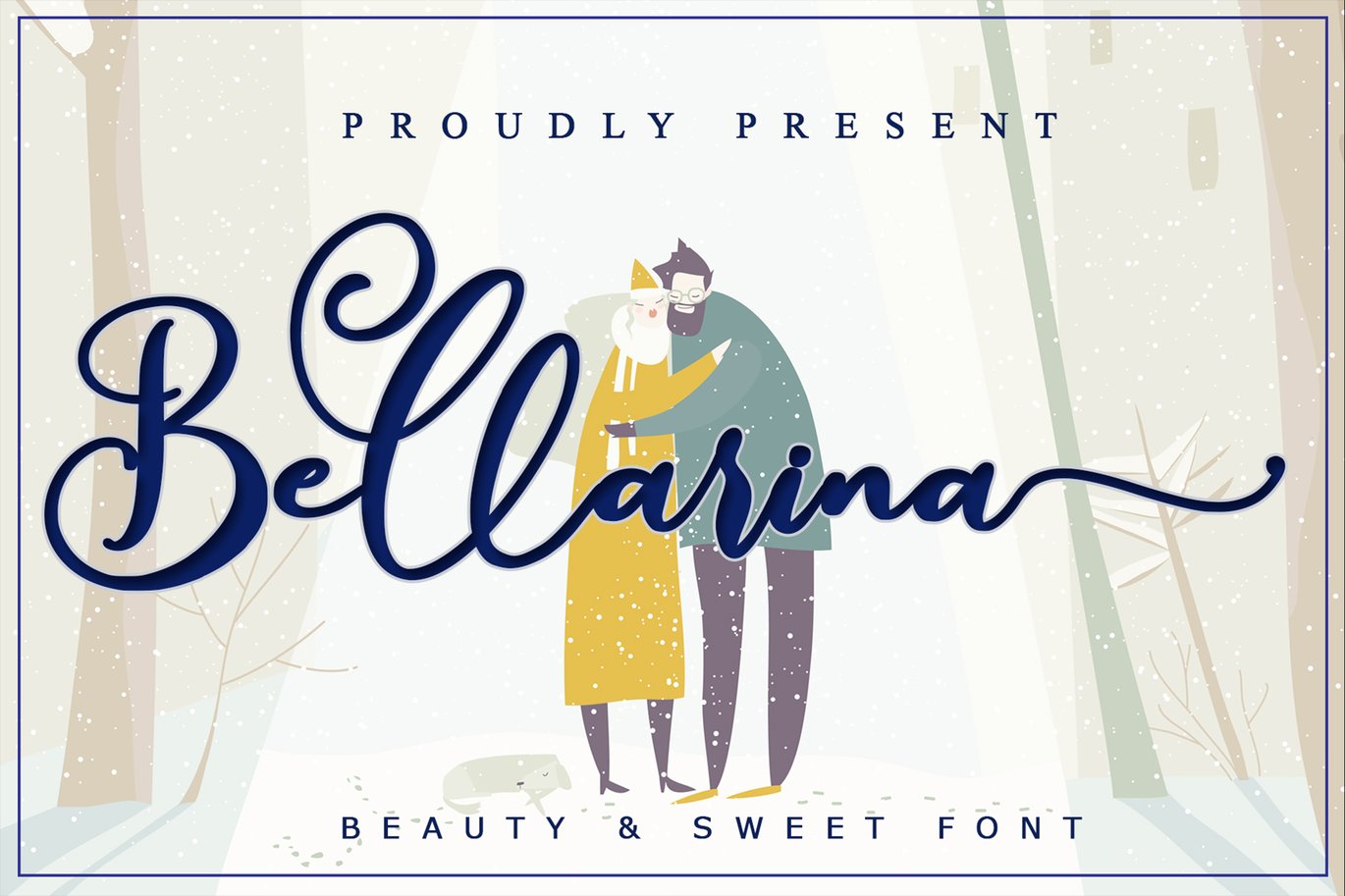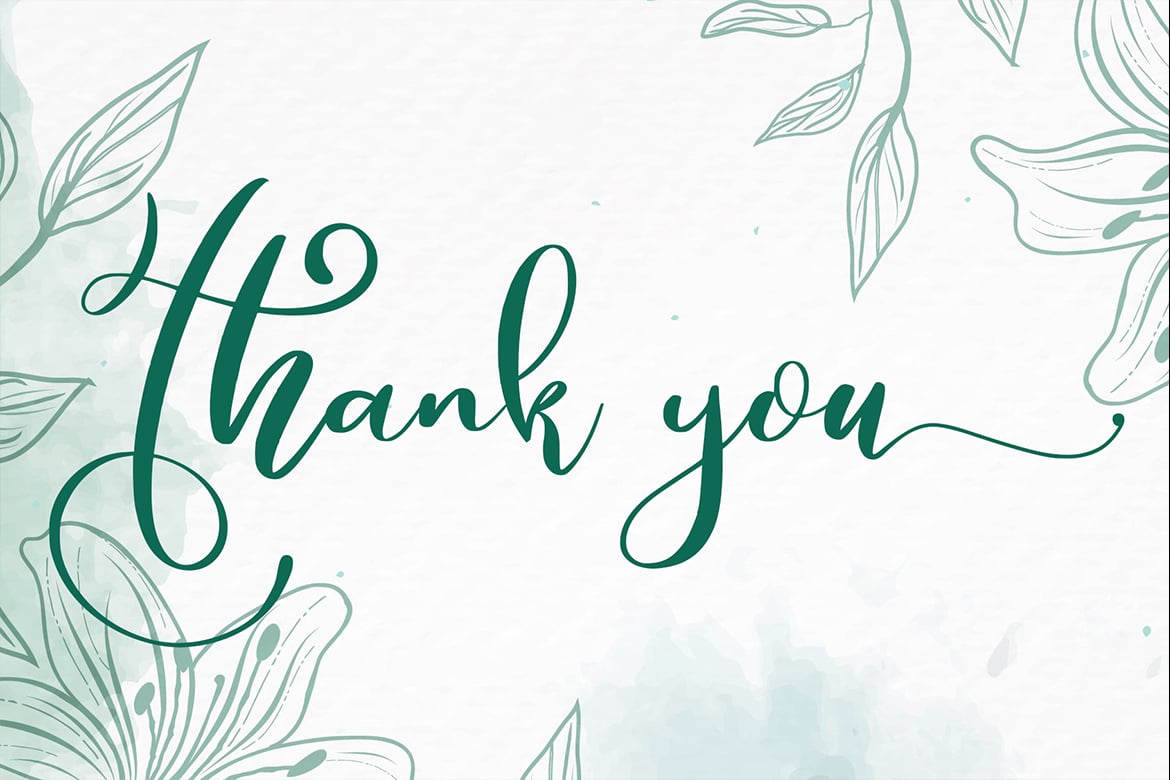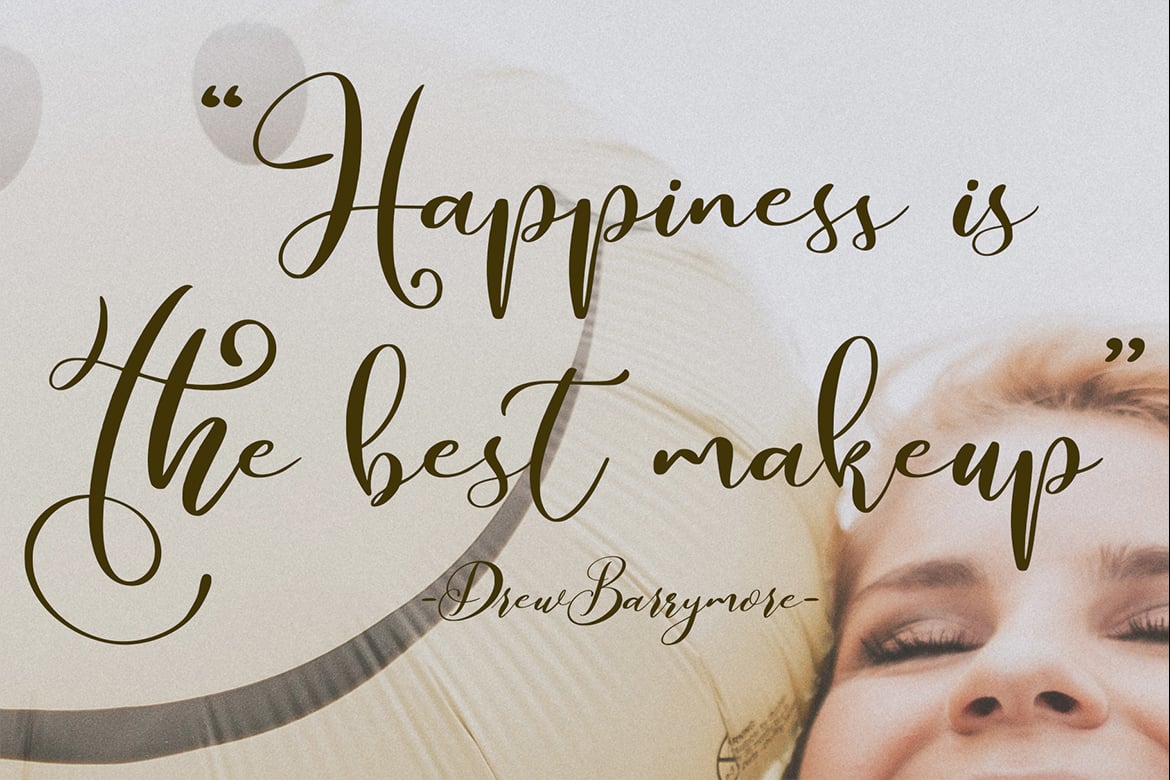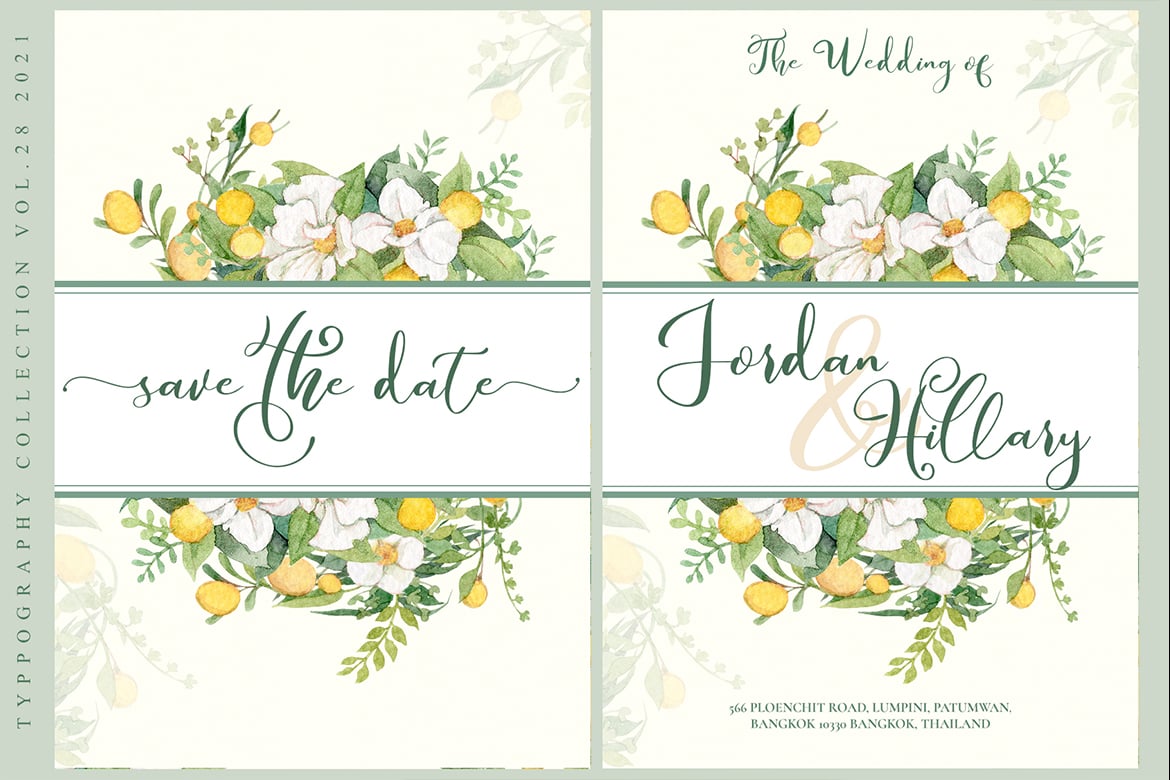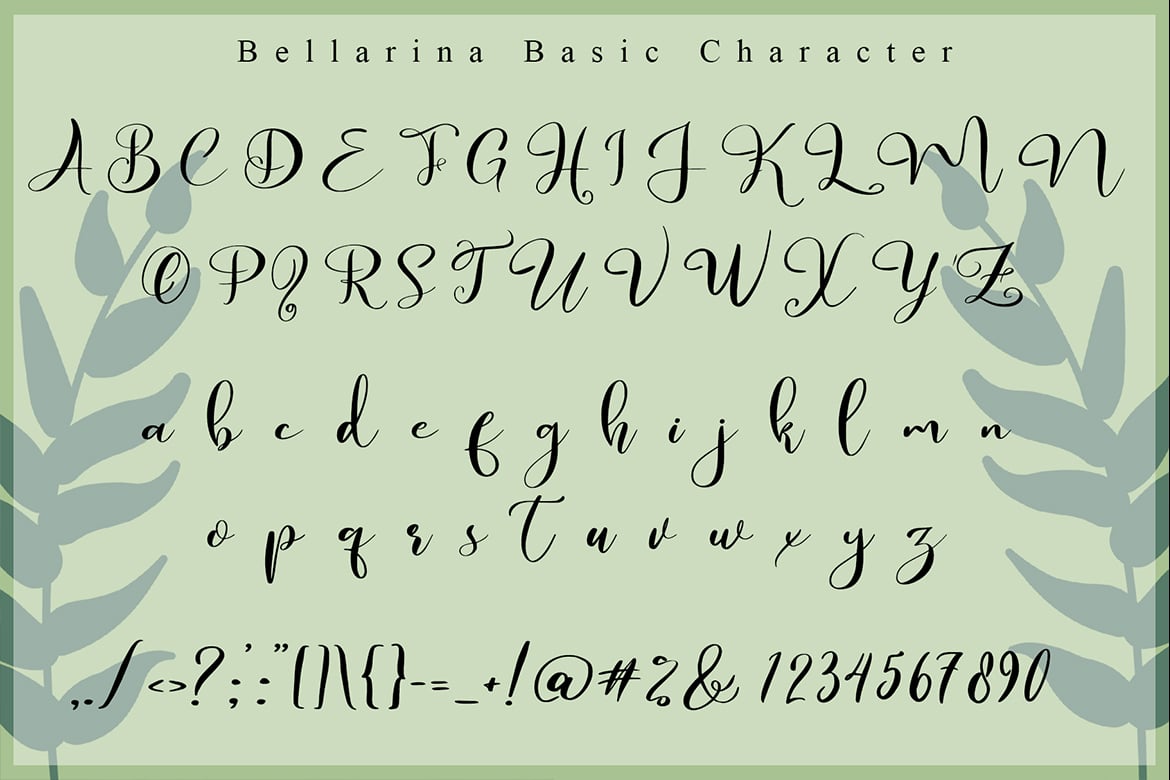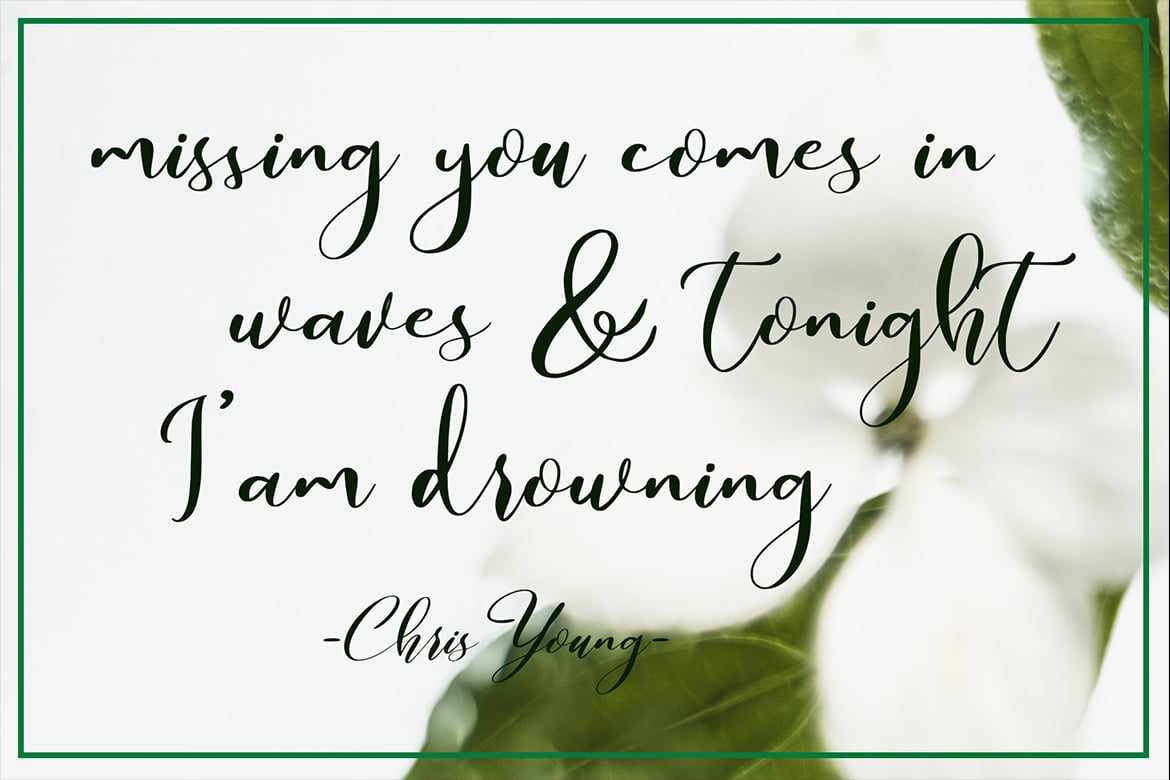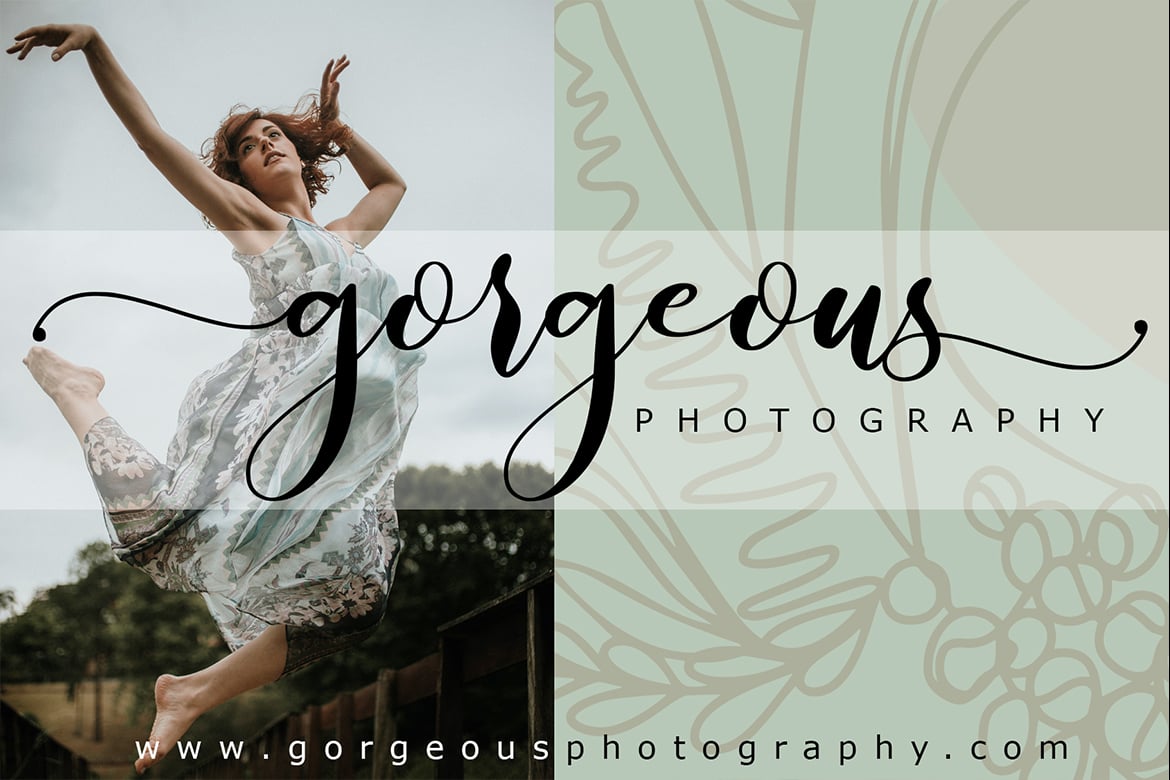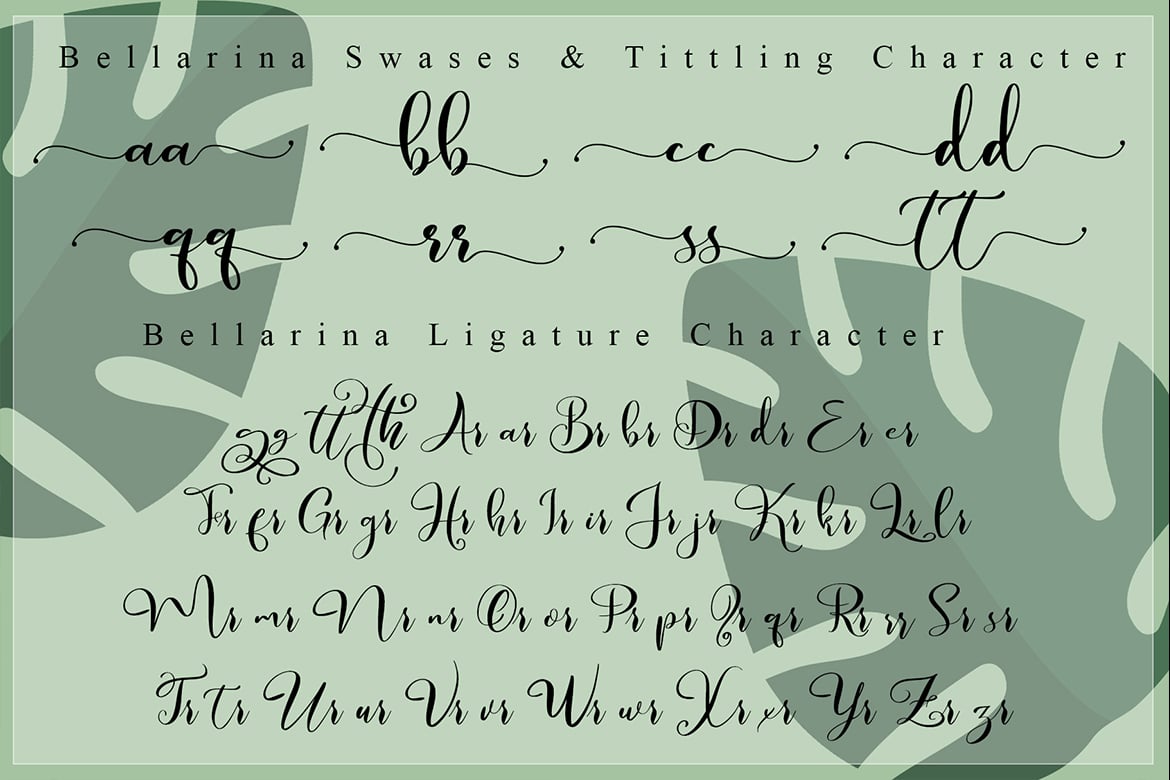
Bellarina // Wedding Font
Bellarina \ Modern Wedding Font
Bellarina // Wedding Font is a joyful and elegant sans serif font. Distinct and incredibly versatile, this font will be the ideal choice for a wide range of designs.
Each Font Has:
- Stylish modern handwritten script
- Beautiful Swash (Ending tail)
- Beautiful Titling (Beginning tail)
- Special Ligatures